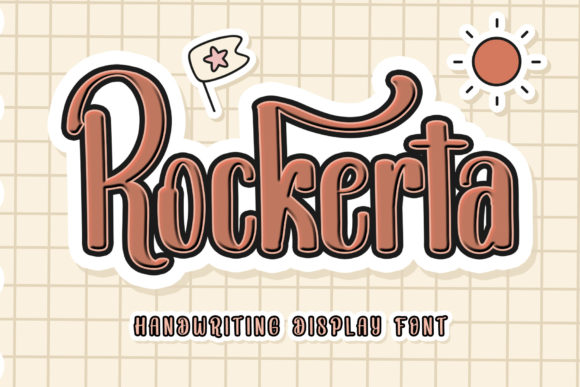
Journey into the realm of Rockerta Font, a captivating display font family that dances across your screen with its playful and casual charm. Whether you're crafting Christmas cards, designing posters, or simply adding a touch of whimsy to your digital creations, Rockerta is your ultimate companion.
Unleash your creativity with Rockerta's diverse range of glyphs and swashes, effortlessly accessible thanks to its PUA encoding. Let your imagination soar as you explore the endless possibilities, transforming your designs into masterpieces that resonate with joy and lightheartedness.
With Rockerta, every project becomes a canvas for your storytelling prowess. Its energetic strokes and playful personality breathe life into your words, captivating your audience with their charismatic flair. From eye-catching headlines to enchanting invitations, Rockerta will elevate your designs to new heights of visual appeal.
Dive into the magic of Rockerta and experience the transformative power of a font that speaks to the heart. Its cheerful demeanor and boundless energy will ignite a spark of creativity within you, propelling your designs to the forefront of innovation and style.